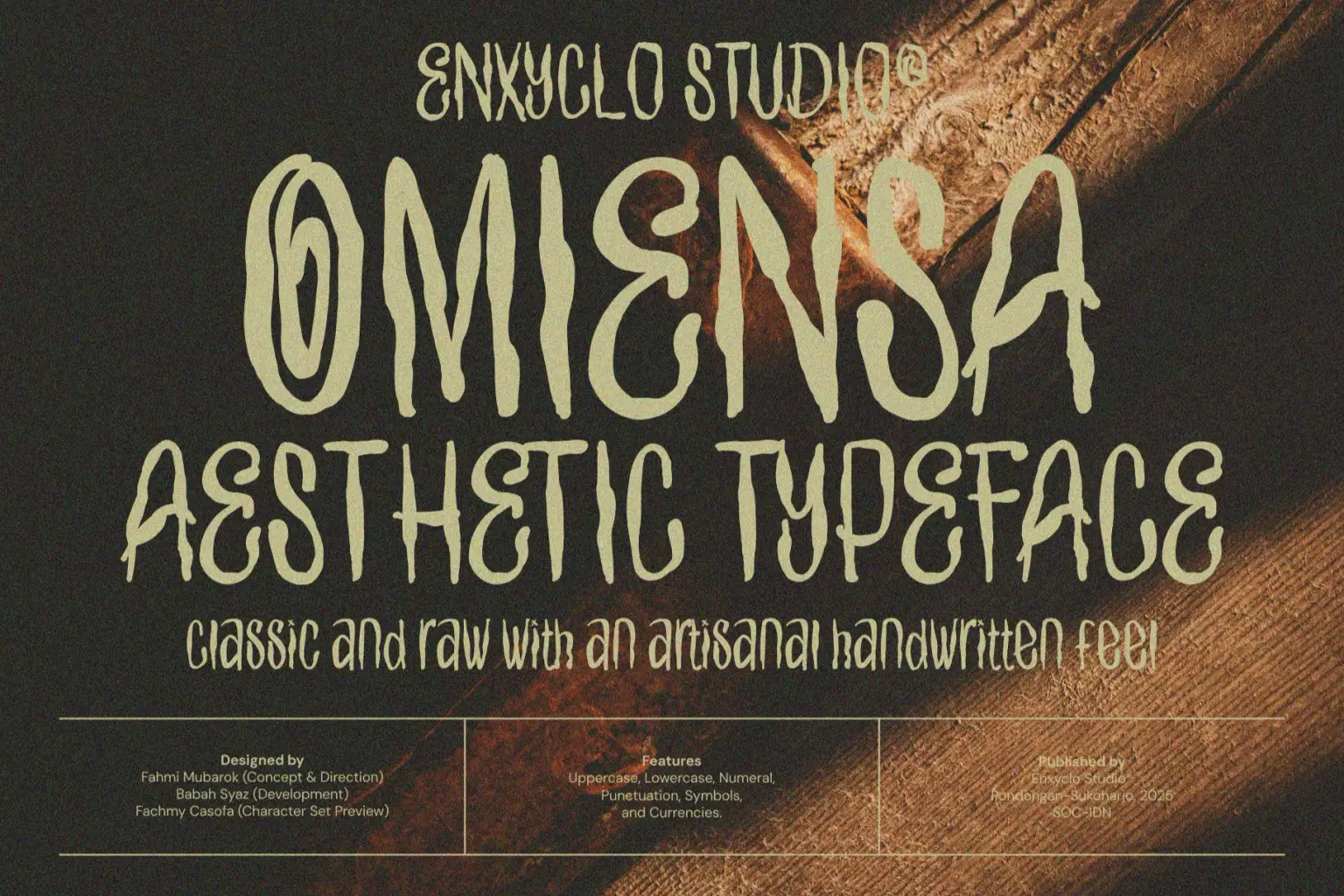
Omiensa is a classic artisanal handwritten font crafted with a beautifully raw and authentic touch. It blends the warmth of hand-drawn lettering with a subtle vintage vibe, creating a truly aesthetic and character-rich typeface perfect for expressive and thoughtful branding.
With its imperfect strokes and handcrafted texture, Omienza captures the essence of traditional artistry — simple, nostalgic, and deeply human. Whether used for logos, packaging, or editorial design, this font delivers a sense of timeless elegance while maintaining a natural, raw personality that feels genuine and memorable. Perfect for brands seeking a crafted, emotional, and sophisticated look, Omienza brings depth, charm, and authenticity to every design.
FEATURE
Uppercase letters
Lowercase letters
Punctuation marks
Symbol set
Currency symbols
PERFECT FOR
Classic and vintage-inspired branding
Artisanal product packaging
Boutique and handmade business logos
Editorial and magazine layouts
Aesthetic social media designs
Personalized stationery and invitations
Retro-style posters and advertising
Organic or craft product labels
Minimalist branding concepts
Photography watermark or signature design